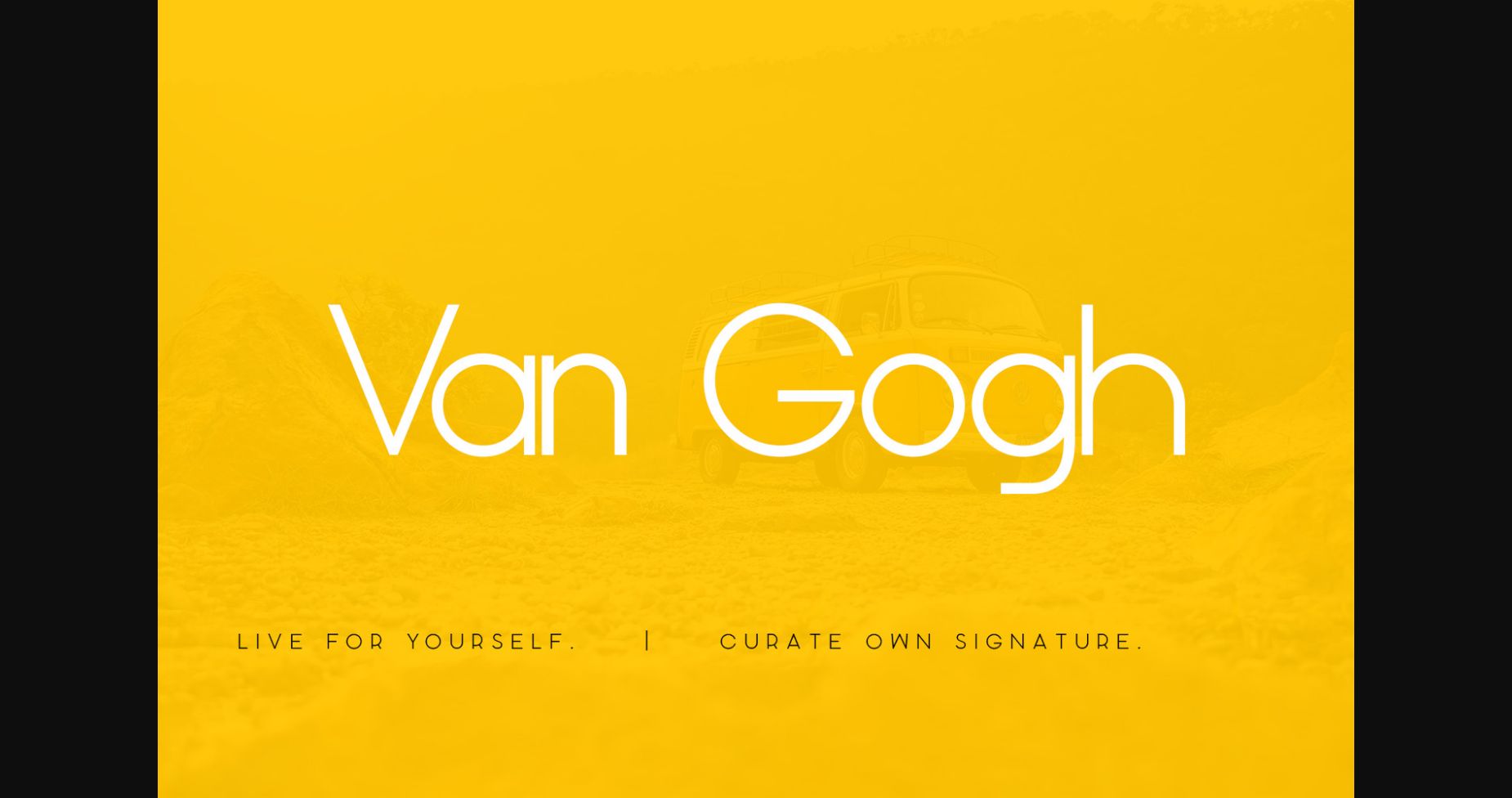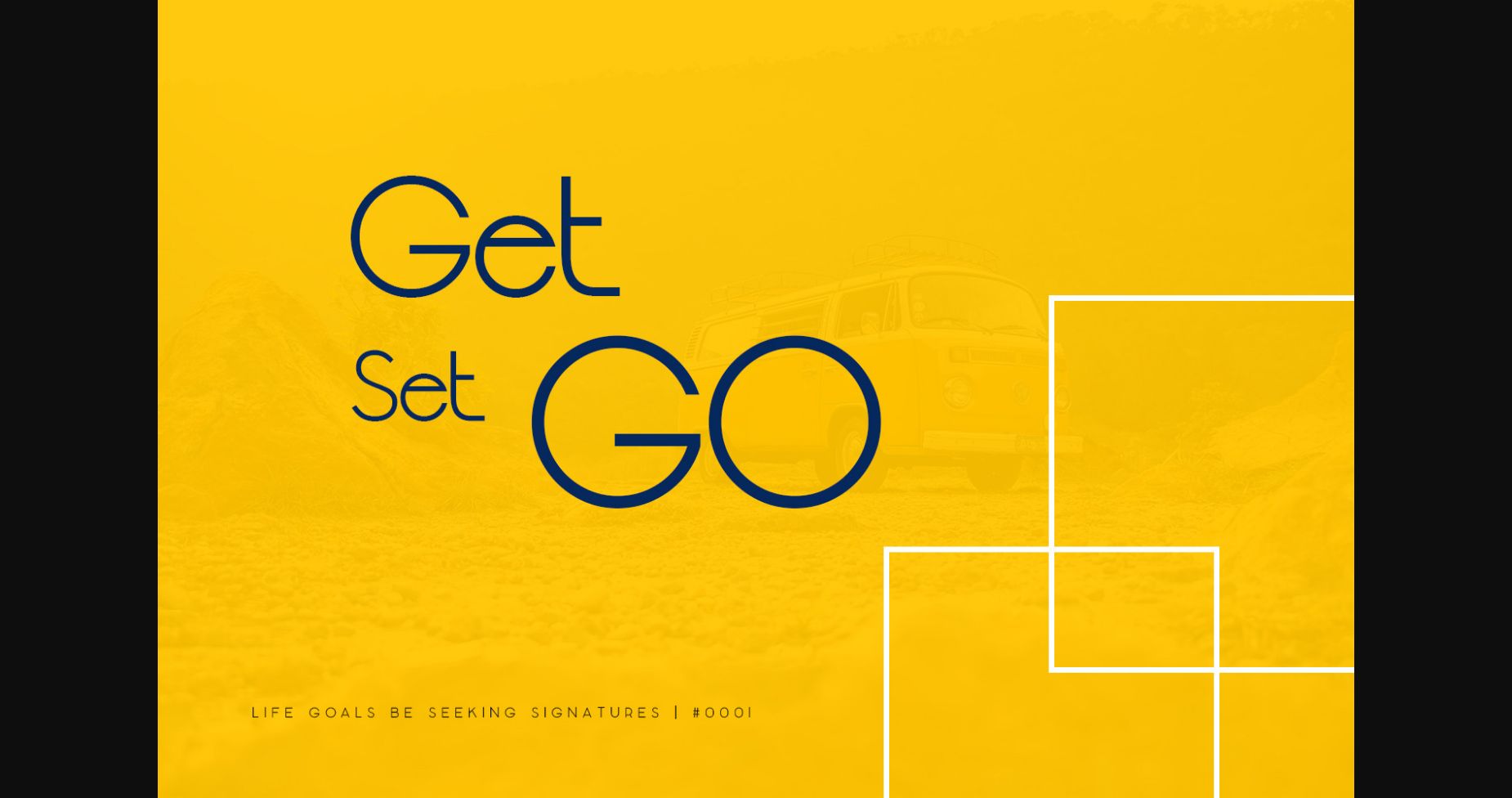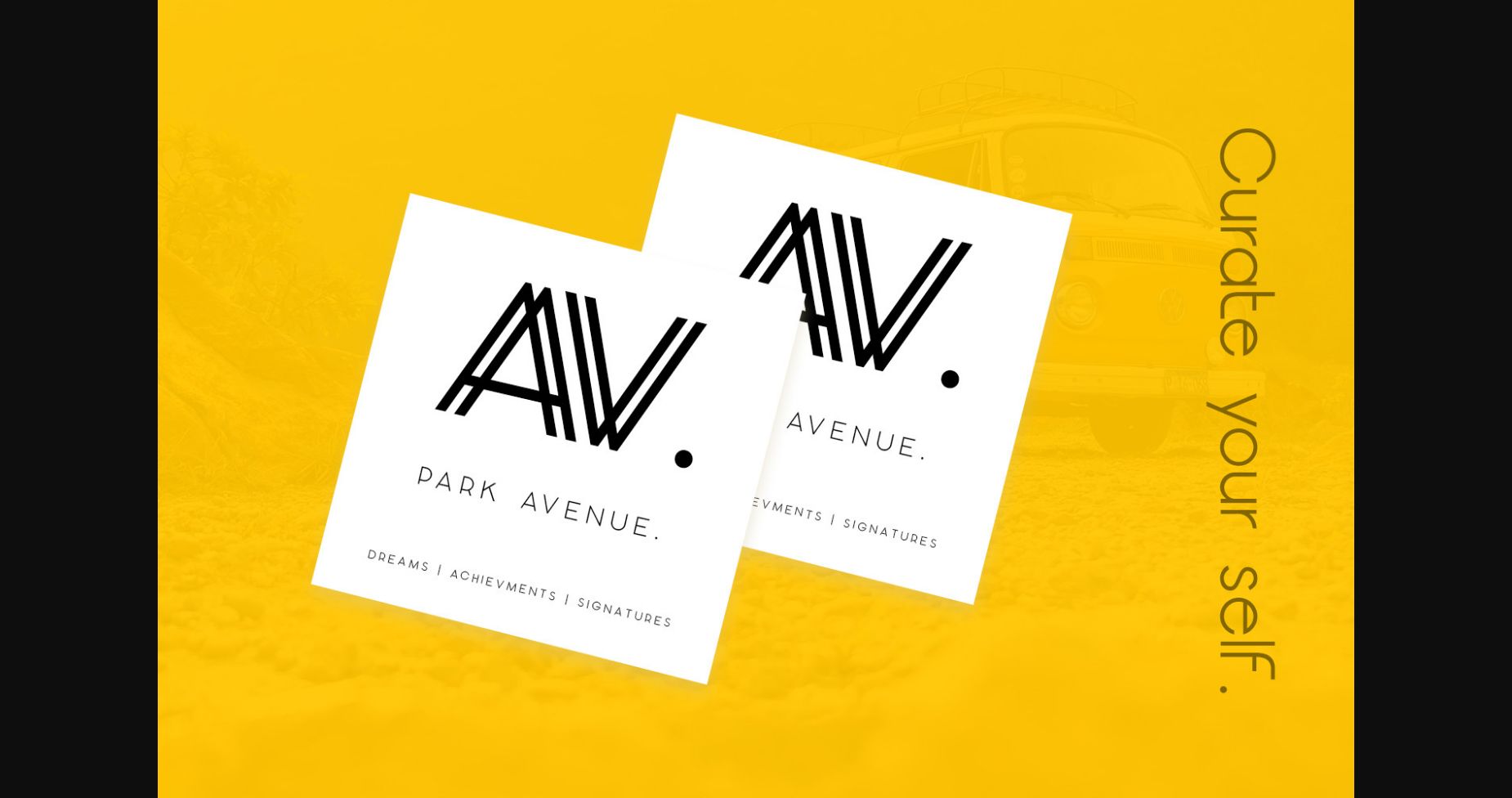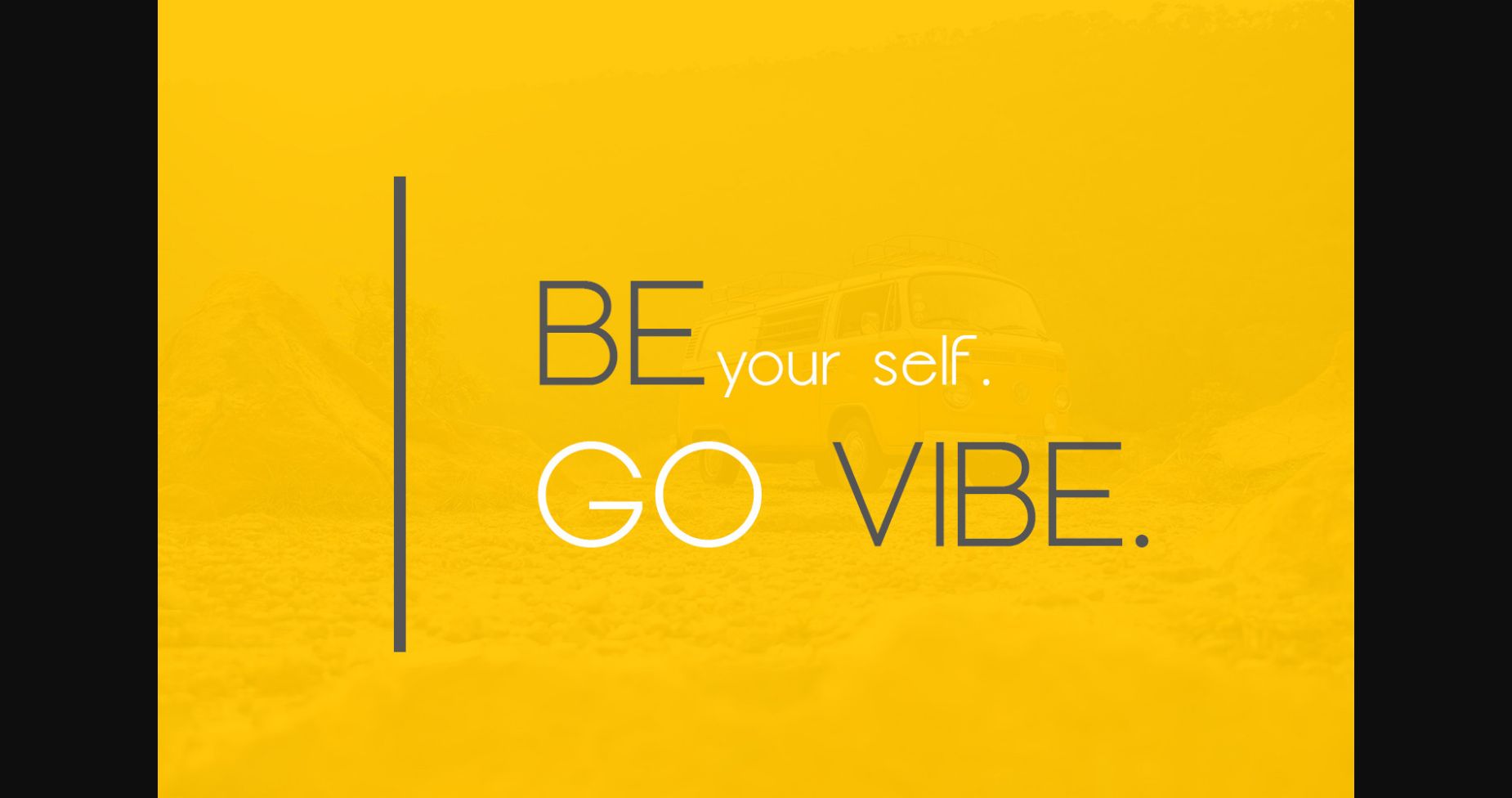
About Van Gogh Font
Van Gogh is a neat and clean sans serif font that beautifully combines a minimalistic look with a modern style. Add it confidently to your projects, and watch how it takes them to the highest levels!